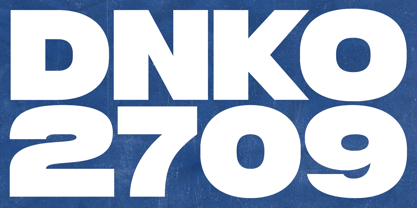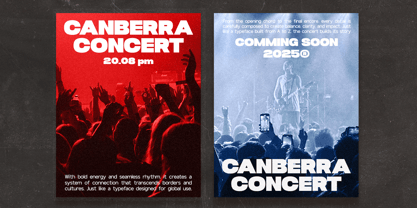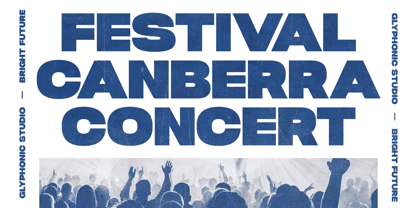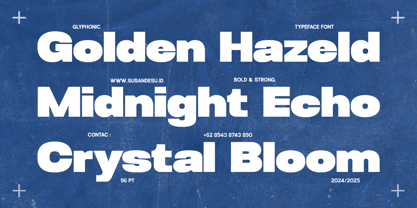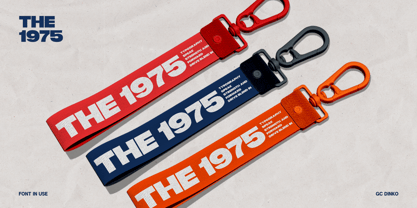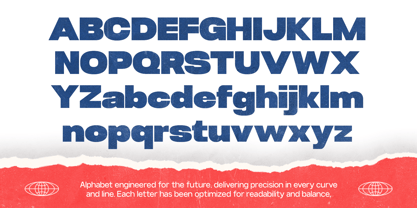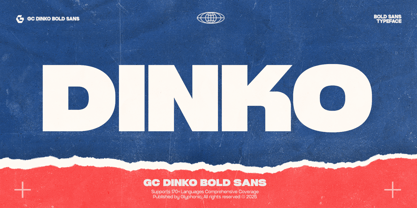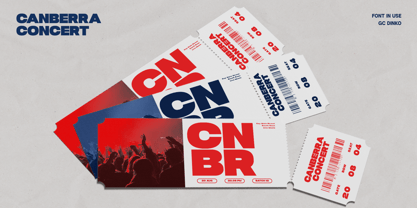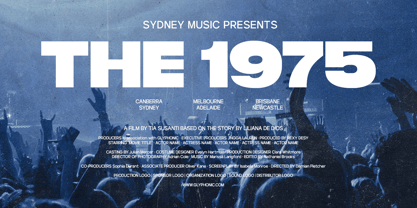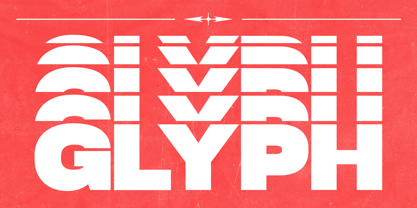
GC Dinko
The GC Dinko Font Family was designed by Muhammad Hafiizh Solana and published by Onyx Studio. GC Dinko contains 1 styles. More about this family
GC DINKO is a bold retro sans typeface that captures the spirit of vintage lettering with a modern twist. Its strong geometric shapes and solid presence bring energy, confidence, and a nostalgic charm to your typography. Perfect for posters, headlines, logos, and bold branding projects, this font makes a statement wherever it’s used.
With its striking proportions, sharp edges, and timeless retro vibe, GC DINKO balances classic inspiration with contemporary usability. Whether you’re designing eye-catching titles, retro-inspired packaging, or impactful social media graphics, this typeface delivers power and personality in every letter.
Features:
• Uppercase & Lowercase
• Numbers & Punctuation
• Ligatures & Stylistic Alternates
• Multilingual Support (170+ Languages)
Make your design bold, retro, and unforgettable with GC DINKO.